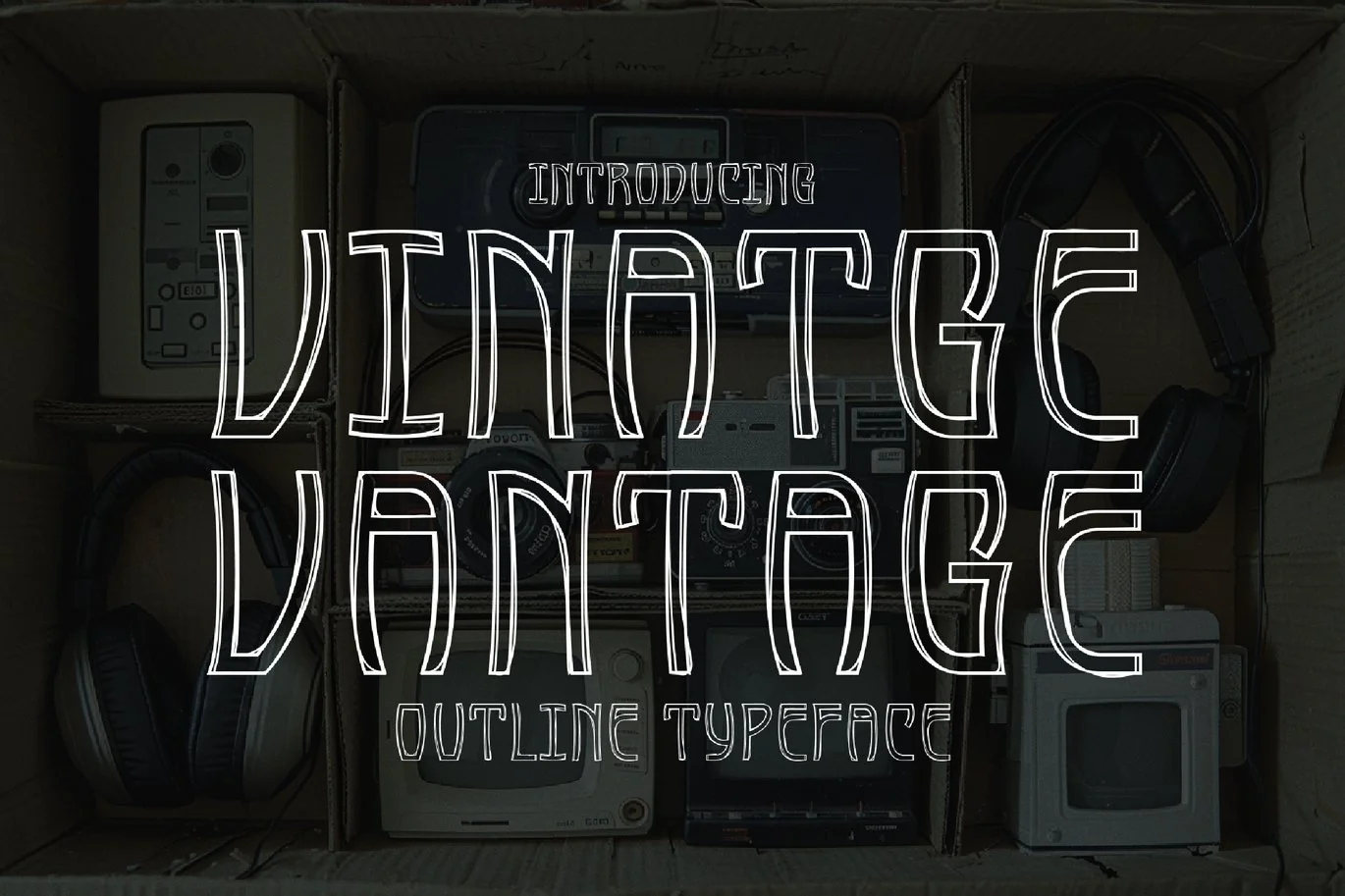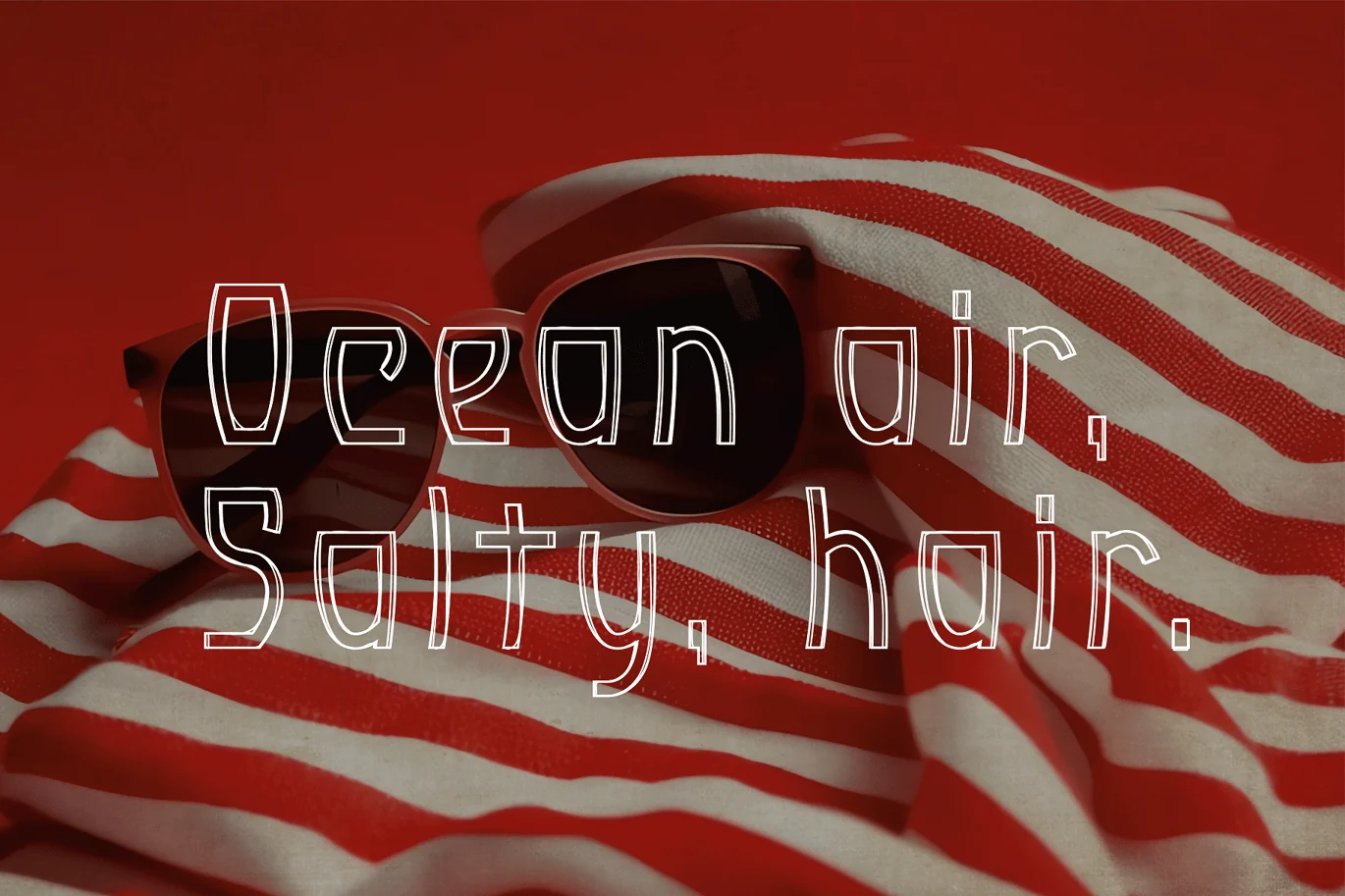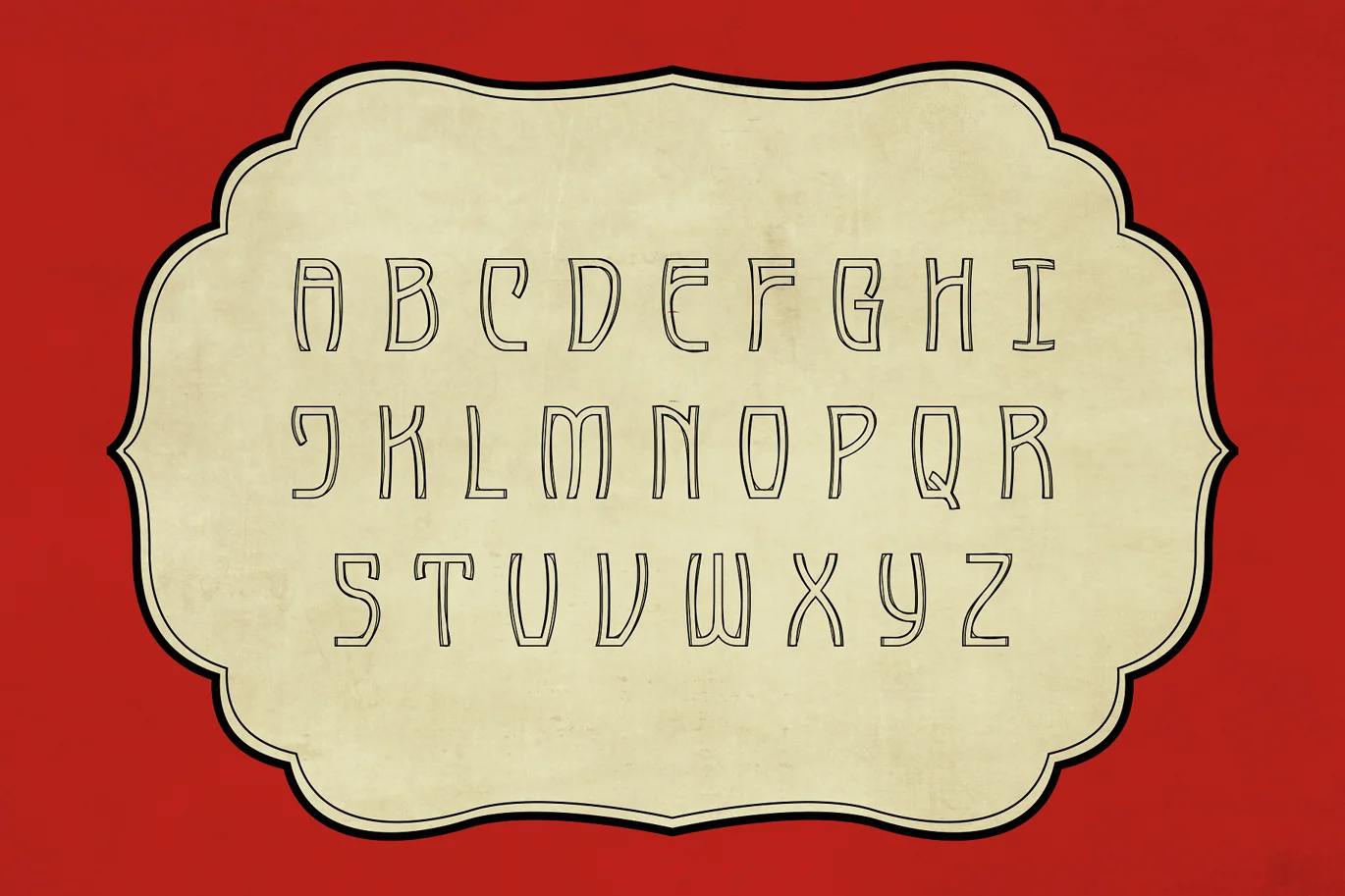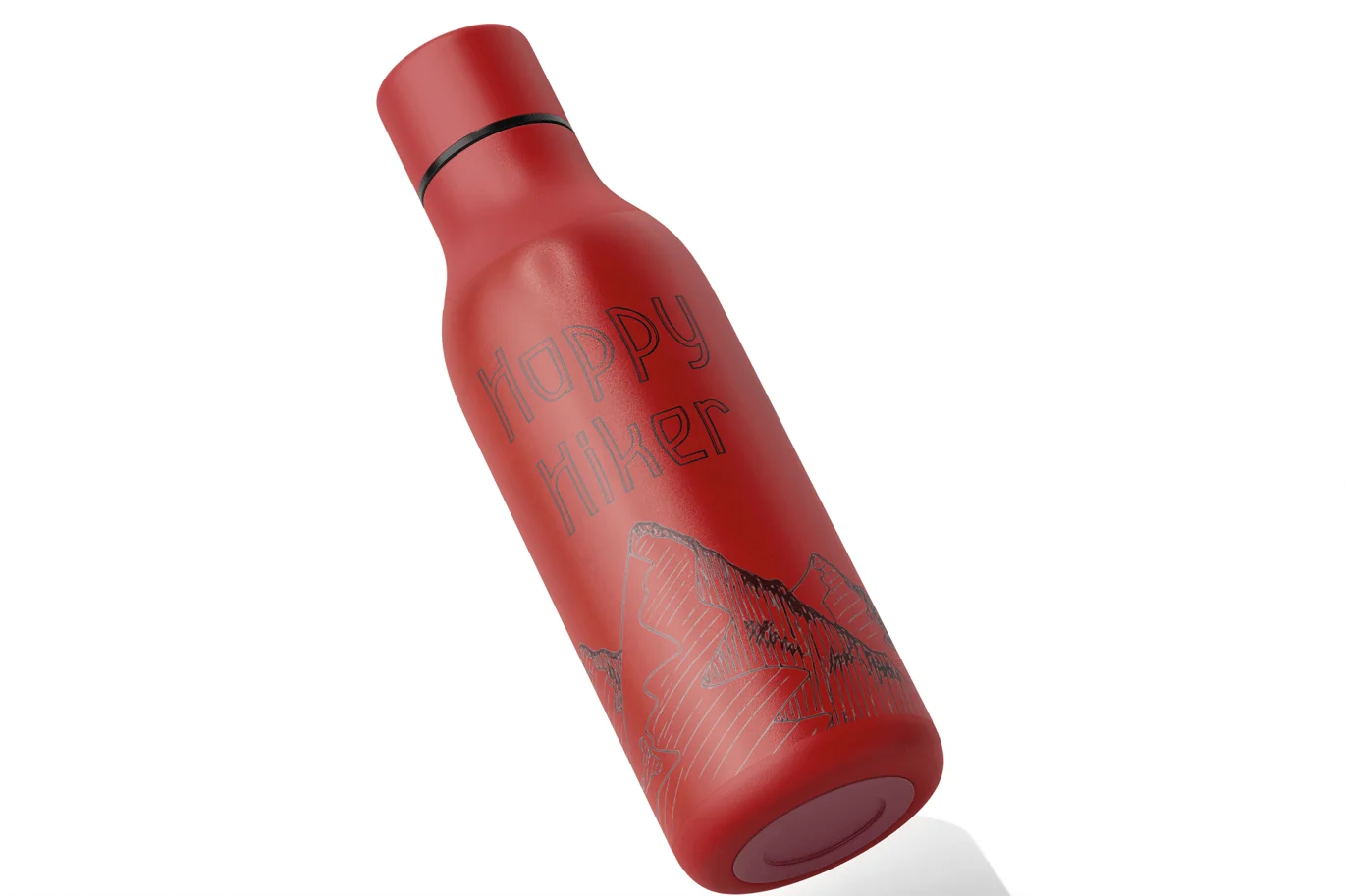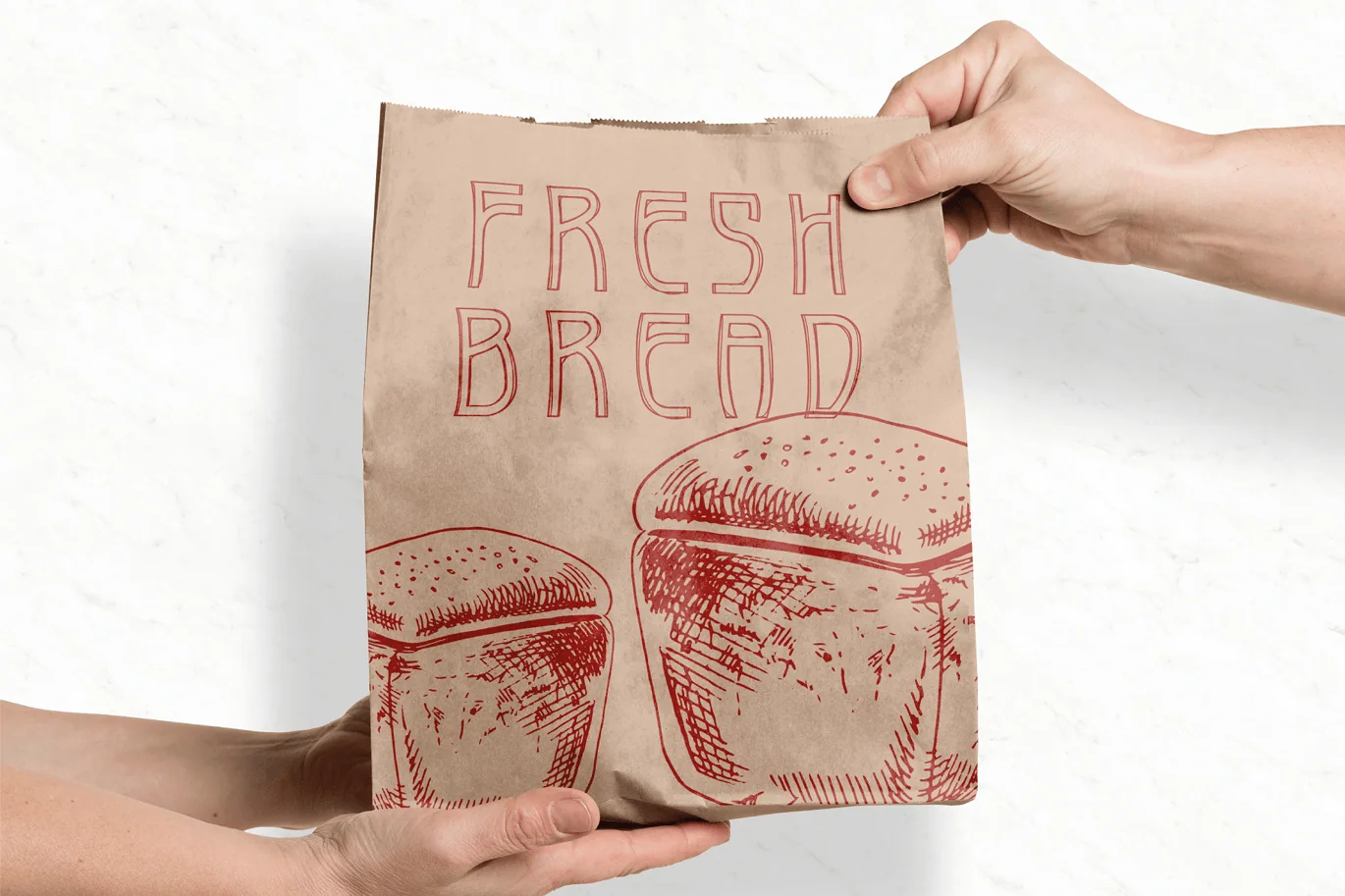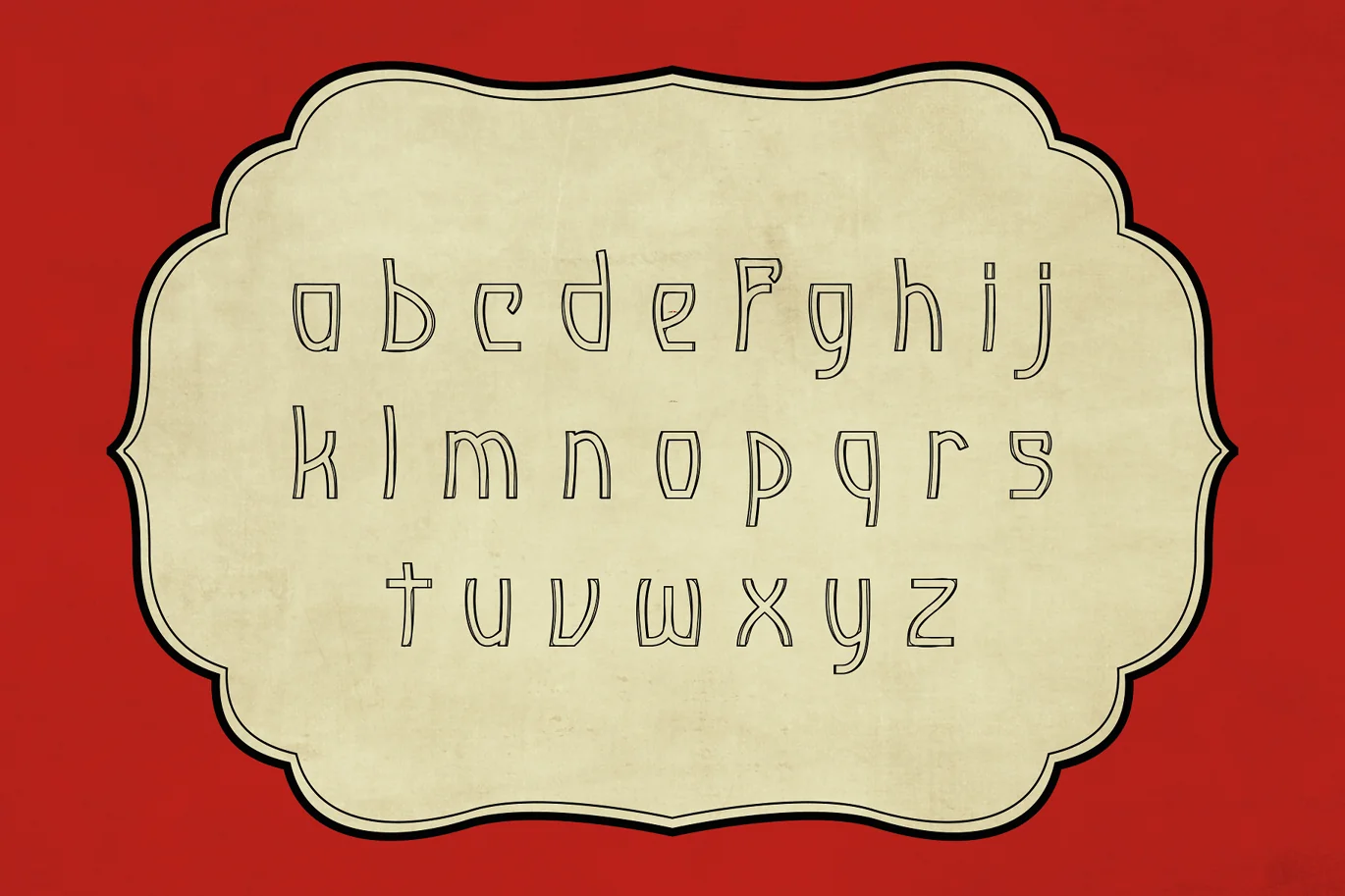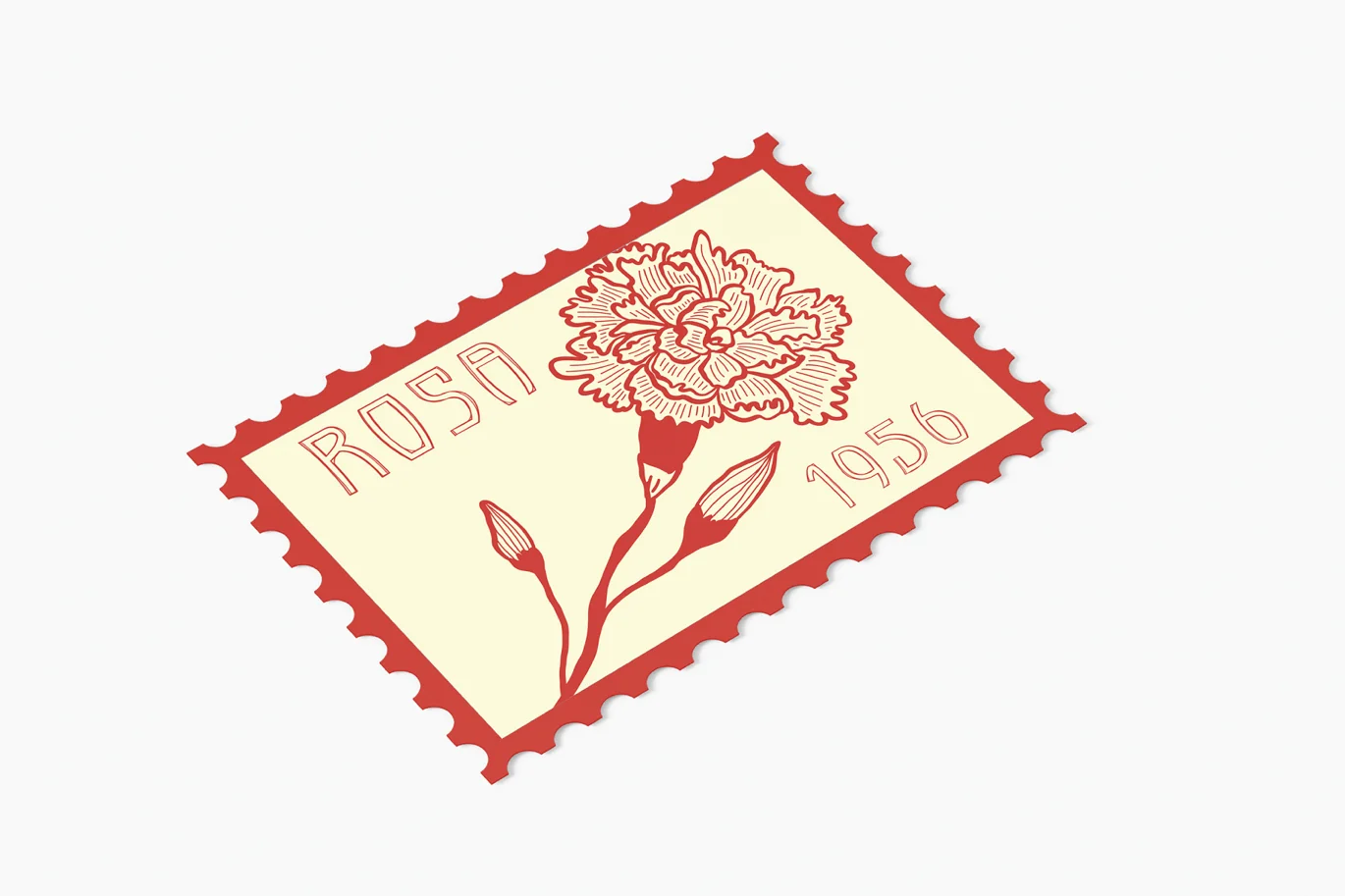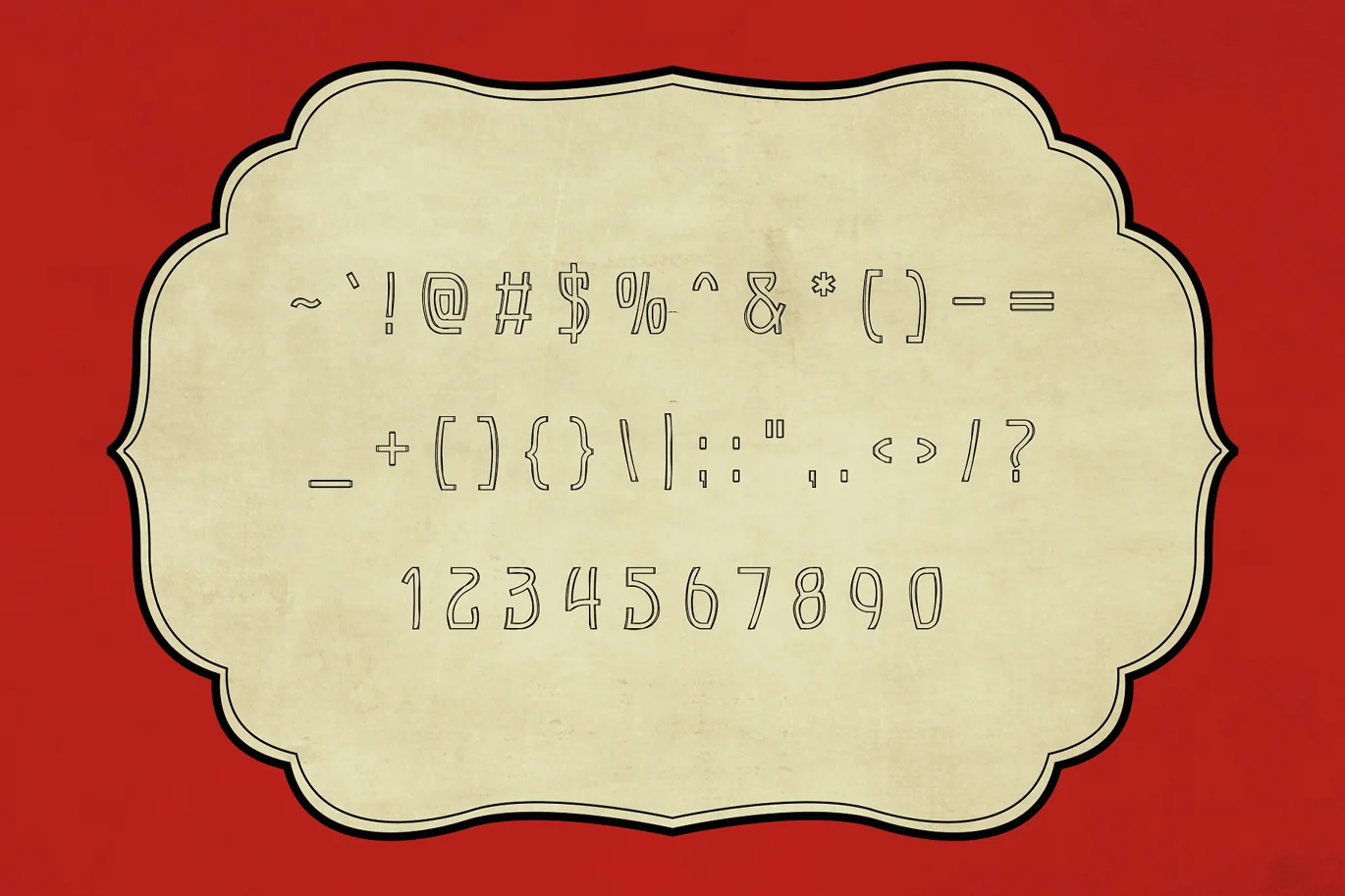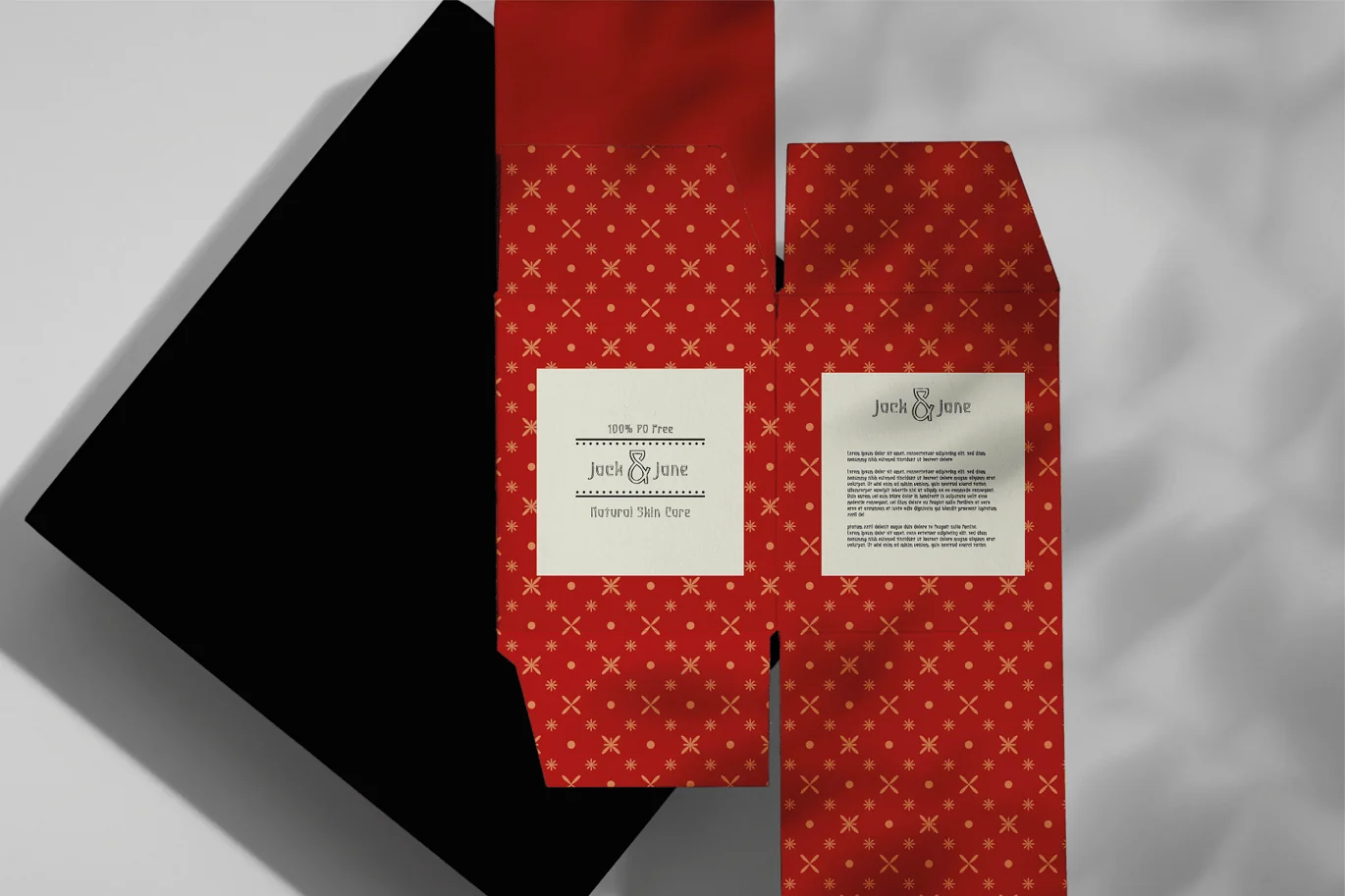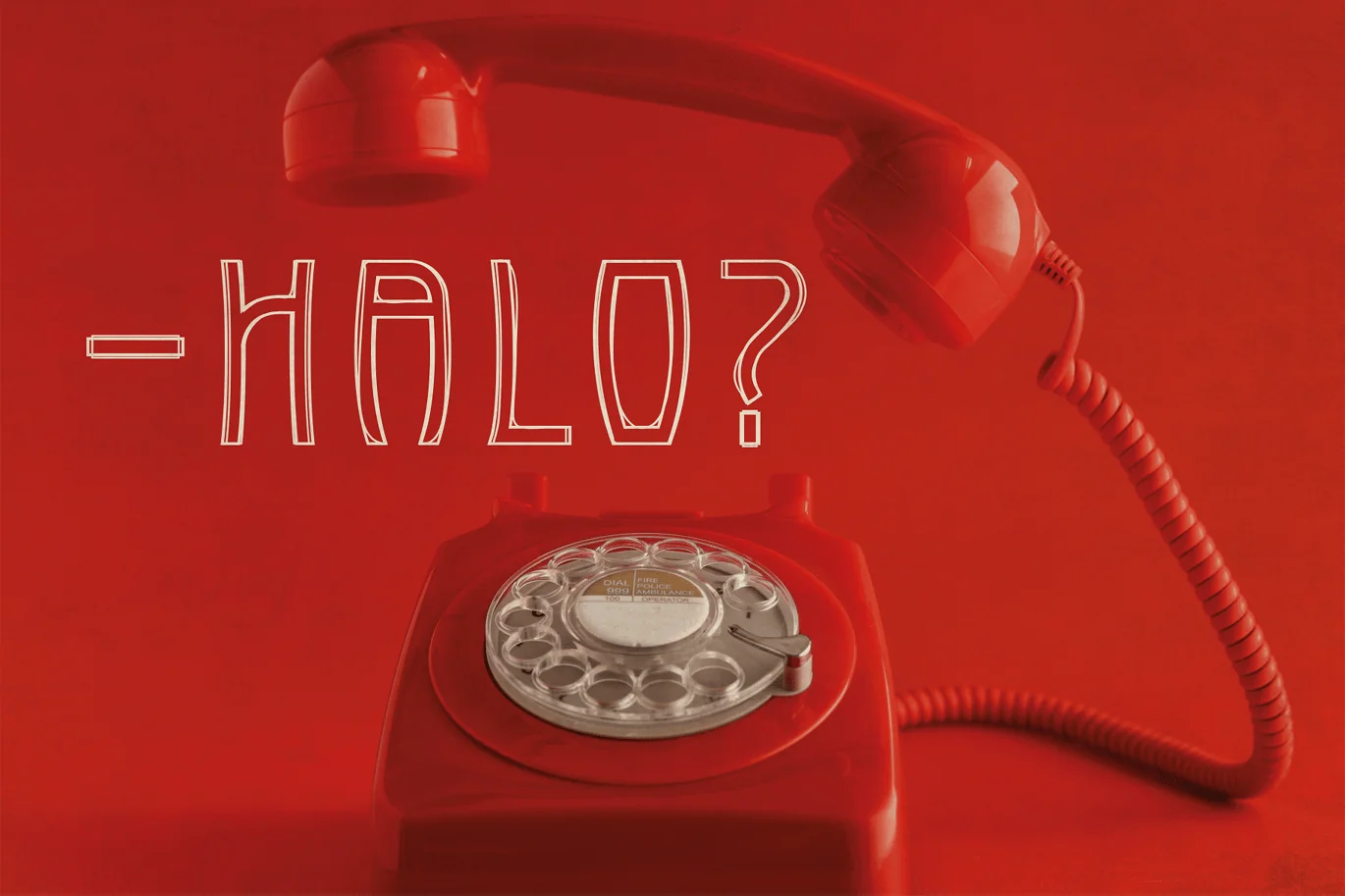
Vintage Vantage – Outline Typeface
Introducing Vintage Vantage, a distinguished outline-themed typeface that brings the elegance of the past into the present. Drawing inspiration from antique designs, Vintage Vantage merges classic beauty with modern sophistication, making it the perfect choice for those seeking to add a touch of refinement to their projects.
Vintage Vantage is more than just a typeface; it’s a statement. It’s a celebration of the past, reimagined for the present. Whether you’re looking to evoke nostalgia or simply add a touch of class to your work, Vintage Vantage is your go-to choice.